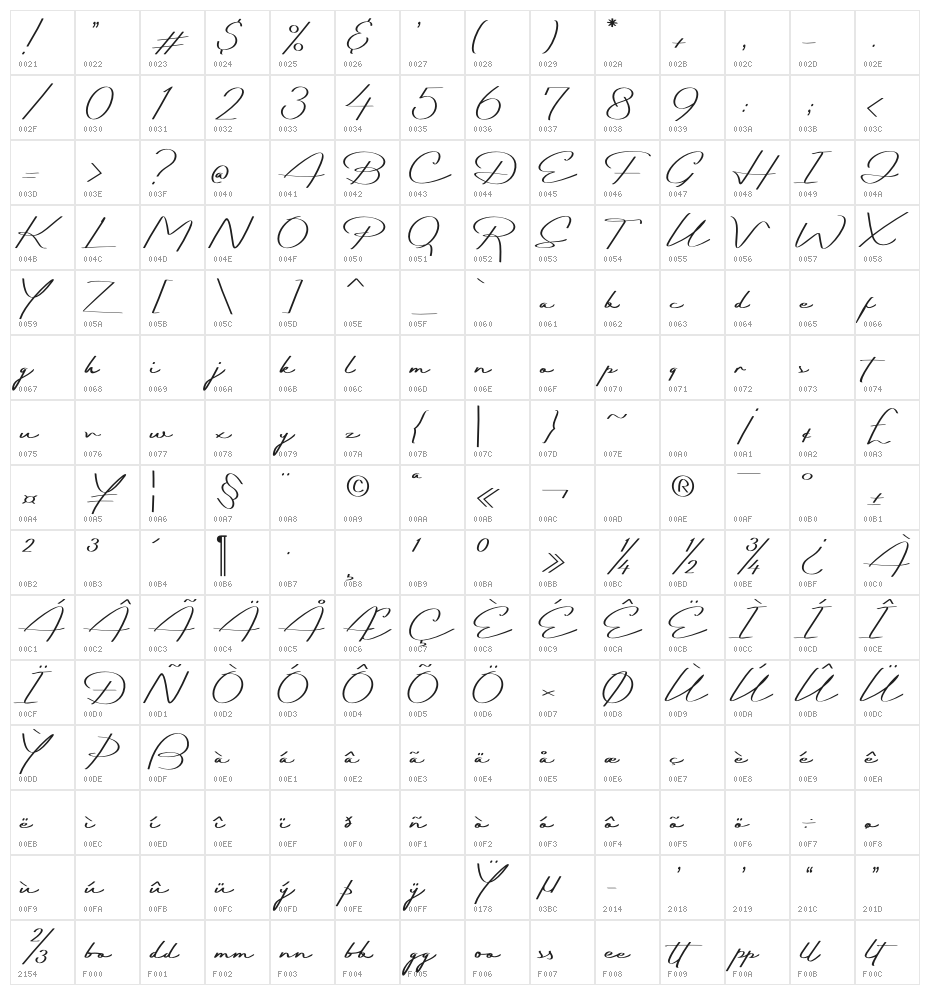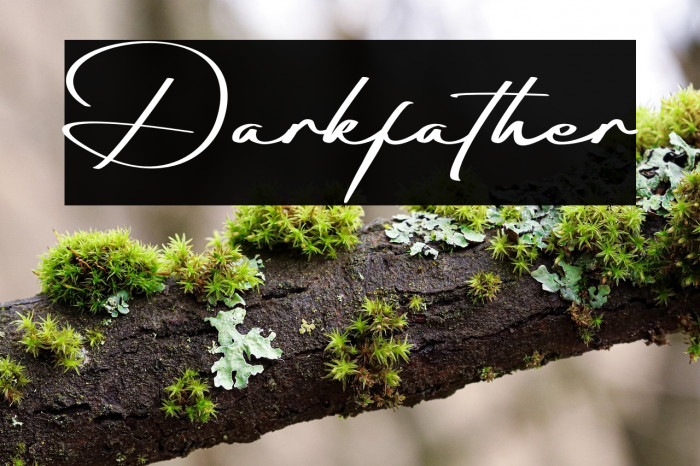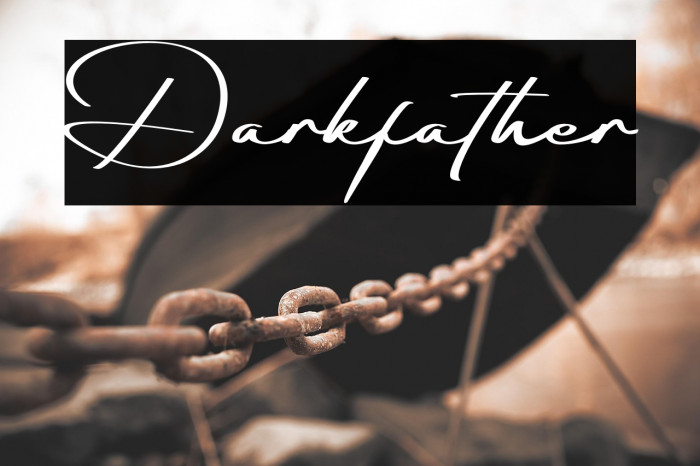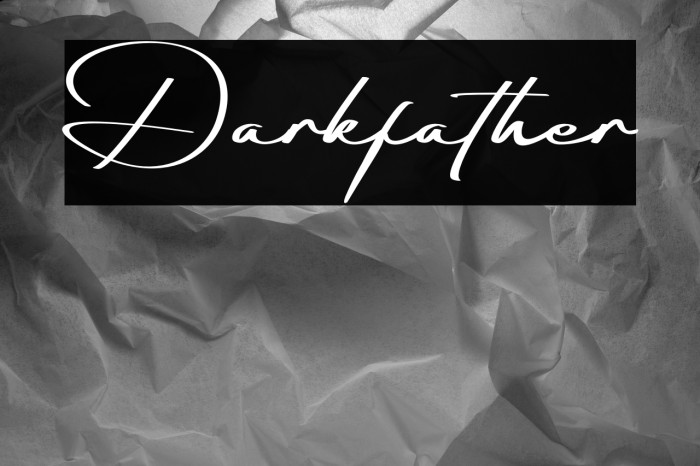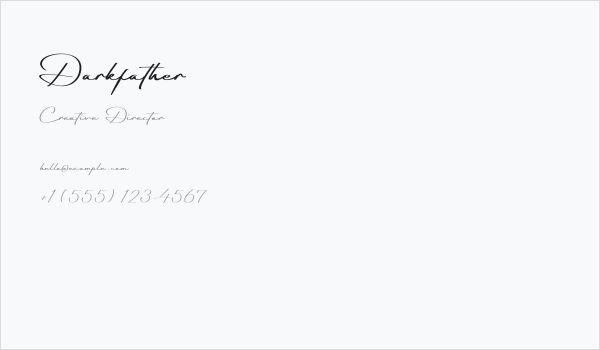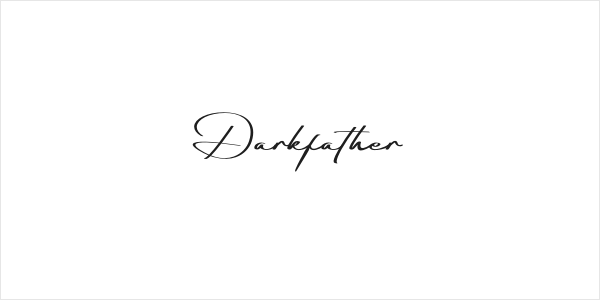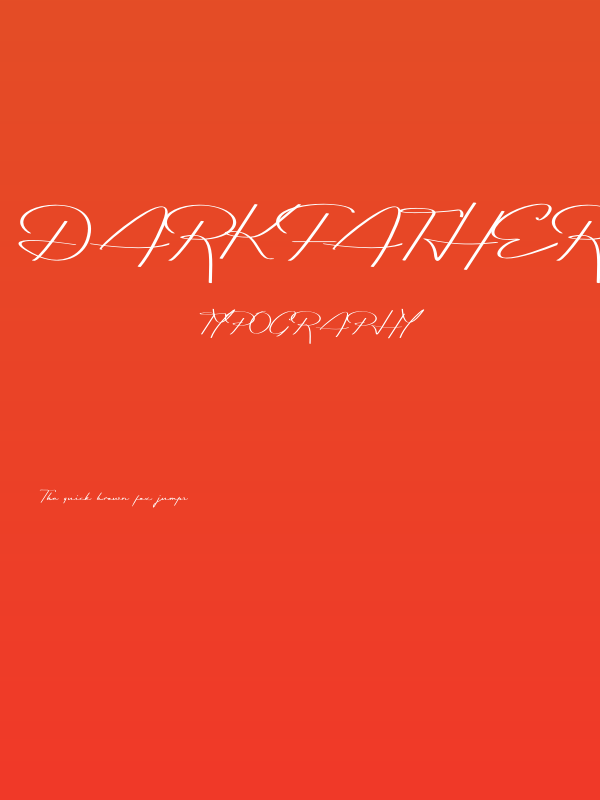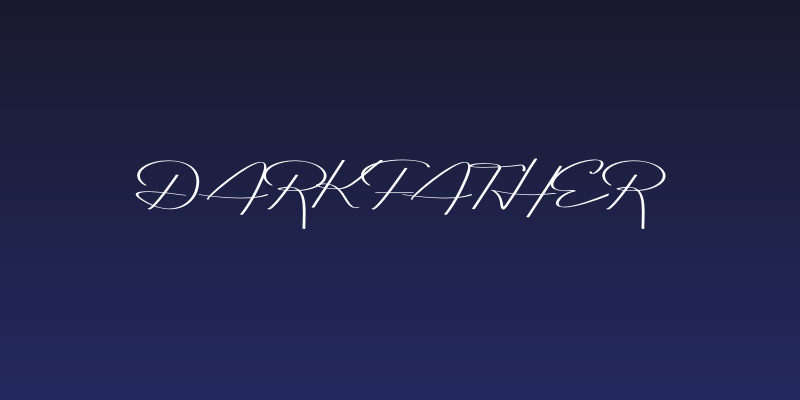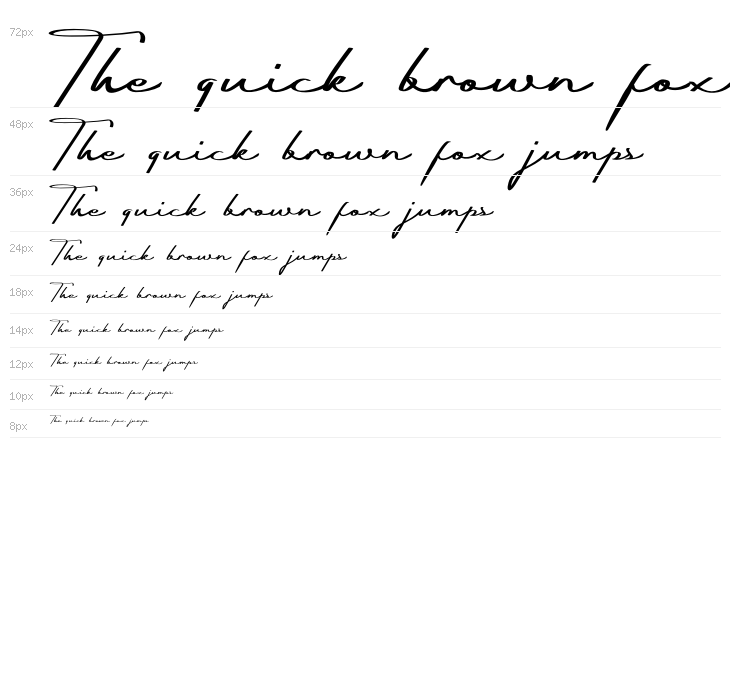
Darkfather Font
Darkfather Description
A cursive, handwritten style font with elegant, flowing lines and a modern touch.
Use CaseLogos, Invitations, Personal branding
Proposed ProjectsInvitations, greeting cards, personal branding.